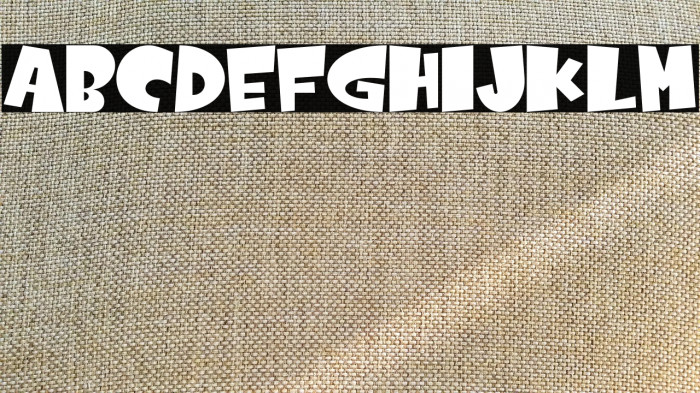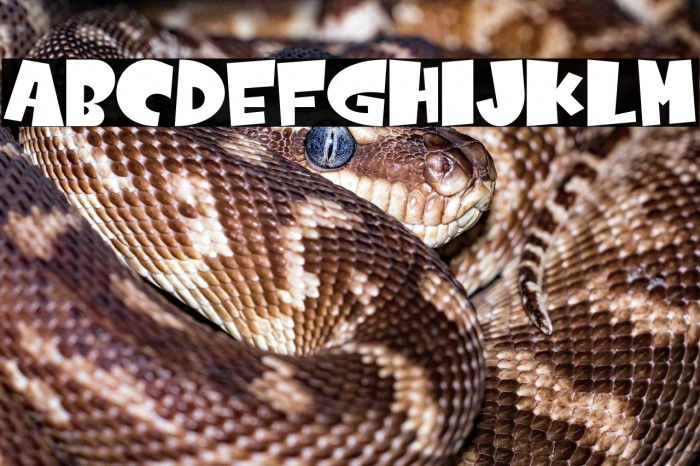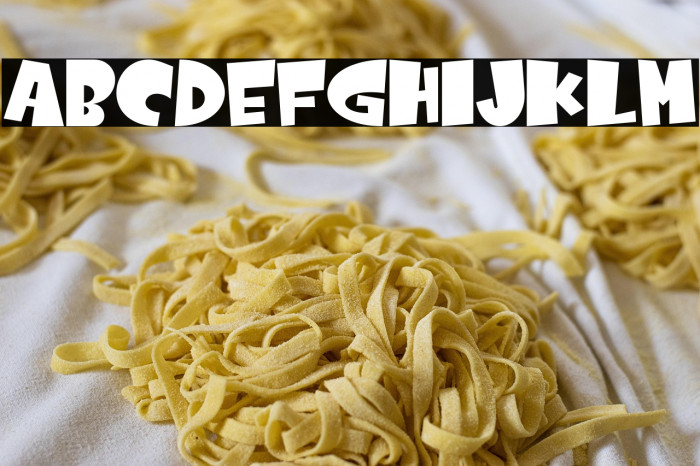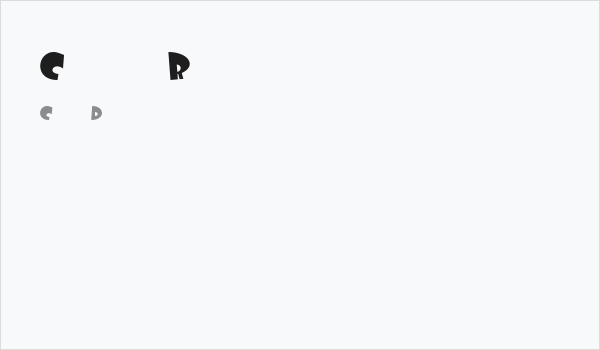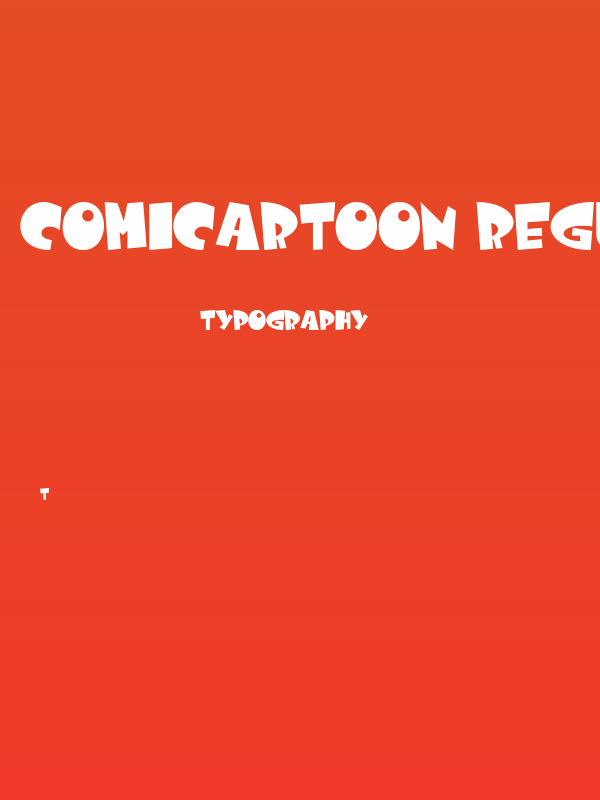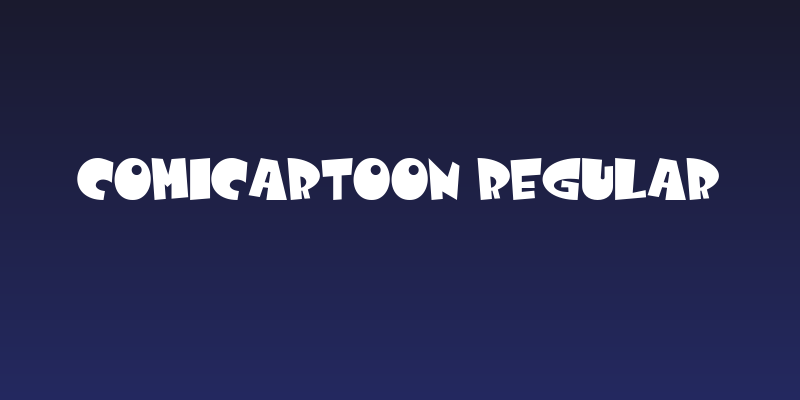
Comicartoon Regular Font
Comicartoon Regular Description
This font exudes a playful and whimsical style, characterized by its bold and exaggerated letterforms. The letters are chunky and have a cartoonish appearance, with irregular shapes and varying stroke widths that add to its fun and informal vibe. The font is highly legible, making it suitable for attention-grabbing headlines and titles. Its quirky design elements, such as the uneven baseline and the exaggerated curves, give it a unique personality that stands out in any design project.
| Proposed Projects | Ideal for comic books, children's books, playful branding, posters, and any project needing a fun, informal touch. |